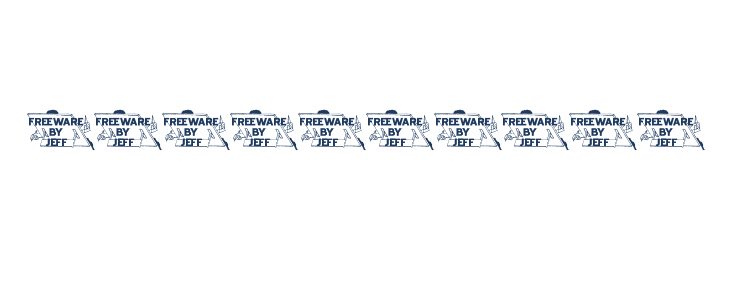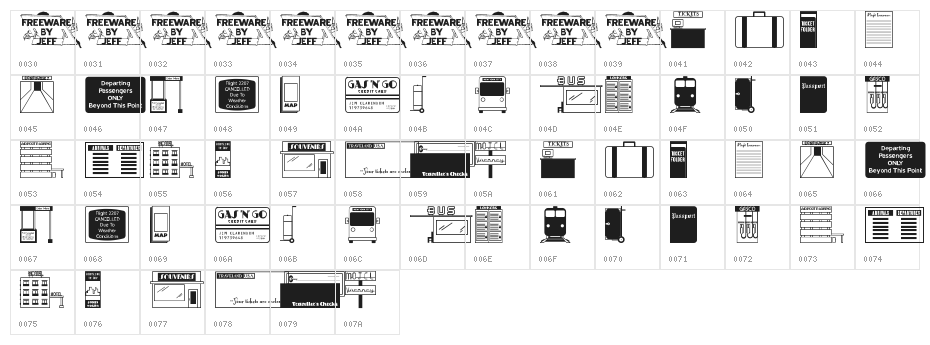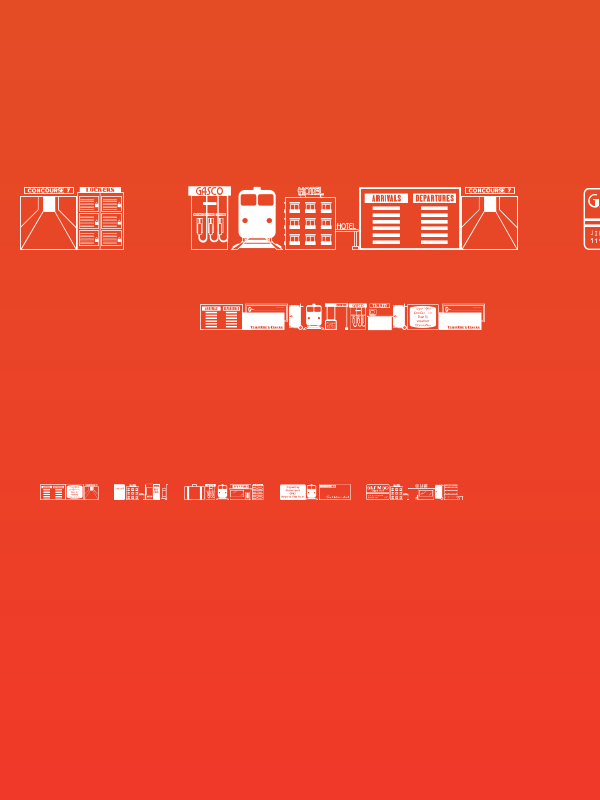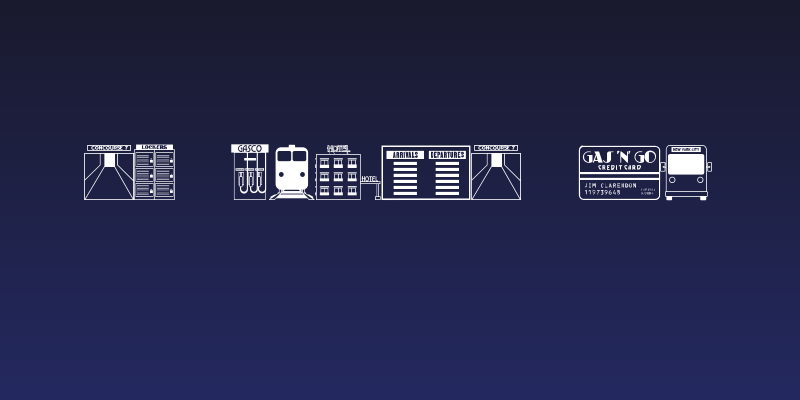
En Route JL Font
En Route JL Description
A decorative font featuring travel and transportation-themed icons and text, resembling signage and labels found in airports and transit stations.
| Use Case | Logos, Posters, Themed Events |
| Proposed Projects | Travel brochures, themed posters, event invitations. |